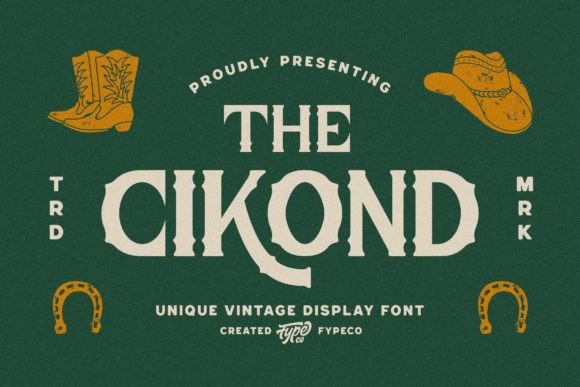
Prepare yourself for a culinary adventure with Cikond, the font that will add a dash of vintage charm to your food brand. Inspired by the rustic charm of Western signs, Cikond is more than just a font; it's a journey through time.
With its distinctive vintage aesthetic and organic feel, Cikond is the perfect companion for designers and branding professionals seeking to create logos, labels, apparel, and designs that exude a timeless, classic Western vibe.
Indulge in the remarkable details of this handmade font, meticulously crafted to capture the essence of Western heritage. Each letter carries a story, and with every stroke, your designs will evoke the nostalgia of simpler times.
Unleash your creativity with Cikond's versatile glyphs and discretionary ligatures, allowing you to explore endless possibilities and create designs that truly stand out. Accessing these unique elements is a breeze, thanks to Cikond's PUA encoding, ensuring seamless integration into your design software.
Transform your designs into culinary masterpieces with Cikond, the font that brings the spirit of the Wild West to your food brand. Embark on this typographic expedition today and let Cikond be your guide to creating designs that are both captivating and memorable.